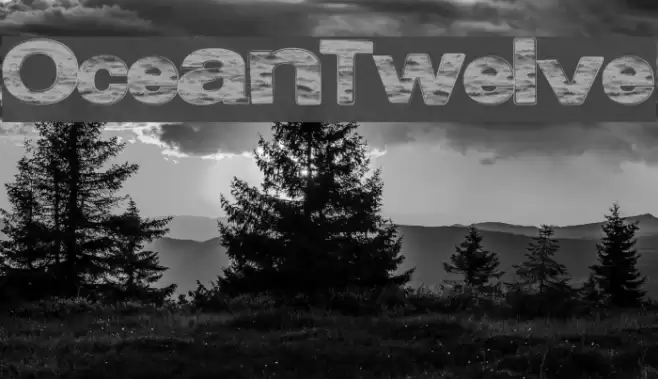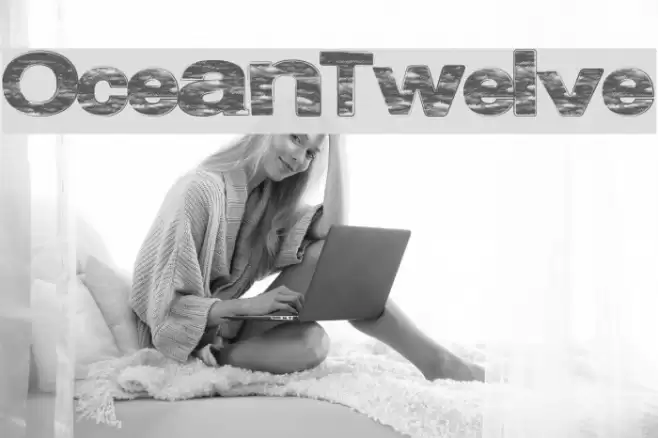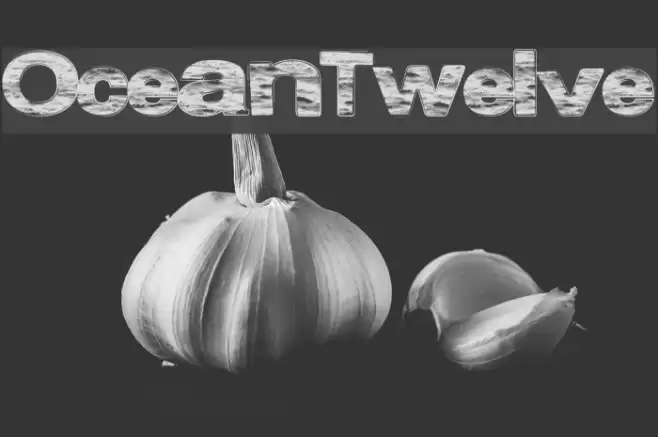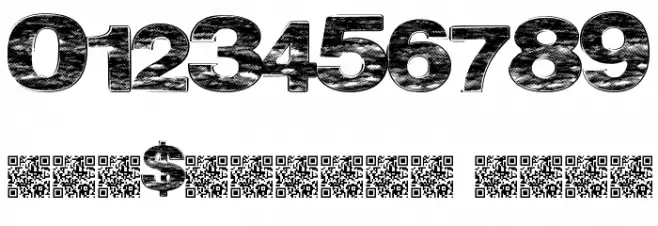
OceanTwelve Font
OceanTwelve Description
This font features a bold, distressed style with a textured appearance that gives it a rugged, weathered look. The characters are thick and heavy, with a consistent width that maintains readability despite the distressed effect. The uppercase and lowercase letters are well-defined, with a uniformity that suggests a modern design approach. The numbers and special characters follow the same stylistic cues, ensuring a cohesive look across all glyphs. This font's unique texture makes it stand out, adding a layer of visual interest to any design project.
A bold, distressed font with a textured, rugged appearance from Distorted Eroded fonts.
- Proposed Projects: Ideal for projects requiring a bold statement, such as posters, album covers, or branding materials that aim to convey a sense of toughness or vintage appeal.